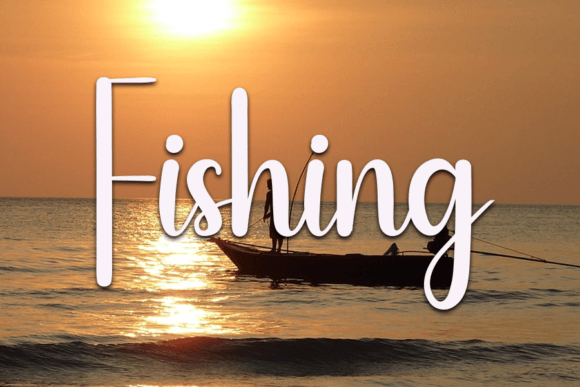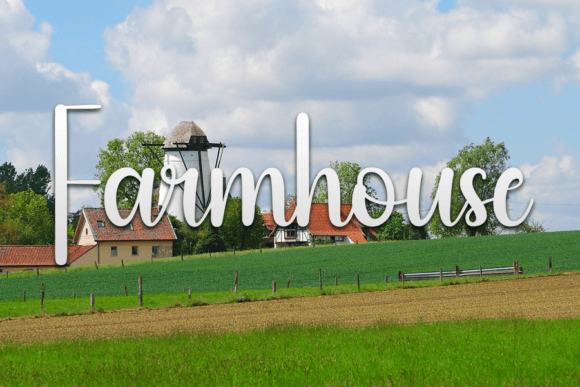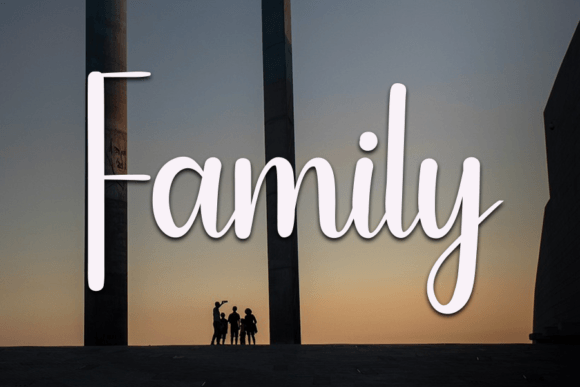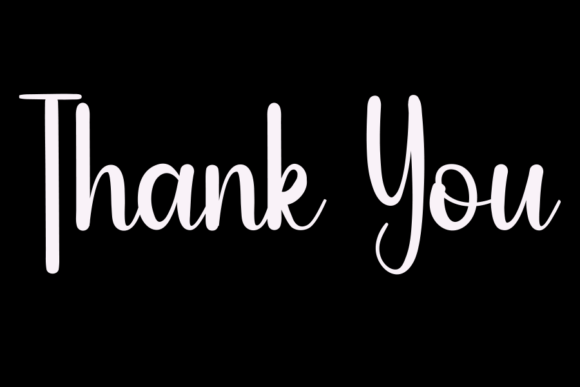
Introducing Bodyguard Font: The Timeless Handwritten Choice for Designers and Crafters
Are you on the hunt for a font that can elevate your designs and make them stand out from the crowd? Look no further than Bodyguard Font, a lovely and timeless handwritten font that’s perfect for creating eye-catching logos, branding, and quotes. With its unique and beautiful touch, Bodyguard Font is sure to bring your designs to life!
The Characteristics of Bodyguard Font
Bodyguard Font is a handwritten font that boasts a range of characteristics that make it an excellent choice for designers and crafters. Here are just a few of the features that set it apart:
- Unique and Beautiful Touch: Every letter in Bodyguard Font has a unique and beautiful touch that sets it apart from other fonts. The font’s handmade quality gives it a personal and distinctive feel that’s perfect for creating one-of-a-kind designs.
- Timeless Appeal: Unlike some fonts that can look dated or trendy, Bodyguard Font has a timeless appeal that will never go out of style. Its classic look and feel make it a versatile choice that can be used for a wide range of design projects.
- Handwritten Quality: Bodyguard Font has a genuine handwritten quality that gives it a warm and inviting feel. This makes it perfect for creating designs that need to feel personal and relatable.
Uses for Bodyguard Font
Bodyguard Font is an incredibly versatile font that can be used for a wide range of design projects. Here are just a few ideas to get you started:
- Logos: Create eye-catching logos that stand out from the crowd with Bodyguard Font. Its unique and beautiful touch makes it perfect for creating memorable and distinctive logos.
- Branding: Use Bodyguard Font to create branding materials that feel personal and relatable. Its handwritten quality and timeless appeal make it an excellent choice for creating a consistent brand identity.
- Quotes: Add a touch of elegance and sophistication to your quotes with Bodyguard Font. Its classic look and feel make it perfect for creating inspirational quotes, posters, and social media graphics.
Why Designers and Crafters Love Bodyguard Font
Designers and crafters love Bodyguard Font for a range of reasons. Here are just a few:
- Ease of Use: Bodyguard Font is incredibly easy to use, even for designers and crafters who are new to working with fonts. Its clear and legible letters make it perfect for creating designs that are easy to read and understand.
- Customization: Bodyguard Font can be easily customized to fit your design needs. Whether you want to change the color, size, or style of the font, Bodyguard Font is flexible and adaptable.
Tips for Getting the Most Out of Bodyguard Font
Here are a few tips for getting the most out of Bodyguard Font:
- Experiment with Different Sizes: Bodyguard Font looks great in a range of sizes, from small and delicate to large and bold. Experiment with different sizes to find the one that works best for your design.
- Play with Color: Bodyguard Font can be used with a range of colors, from bright and bold to soft and pastel. Experiment with different colors to find the one that works best for your design.
- Combine with Other Fonts: Bodyguard Font can be combined with other fonts to create a unique and eye-catching design. Experiment with different font combinations to find the one that works best for your project.
In conclusion, Bodyguard Font is a timeless and lovely handwritten font that’s perfect for designers and crafters. Its unique and beautiful touch, timeless appeal, and handwritten quality make it an excellent choice for creating eye-catching logos, branding, and quotes. With its ease of use, customization options, and excellent support, Bodyguard Font is a must-have for any designer or crafter looking to elevate their designs.